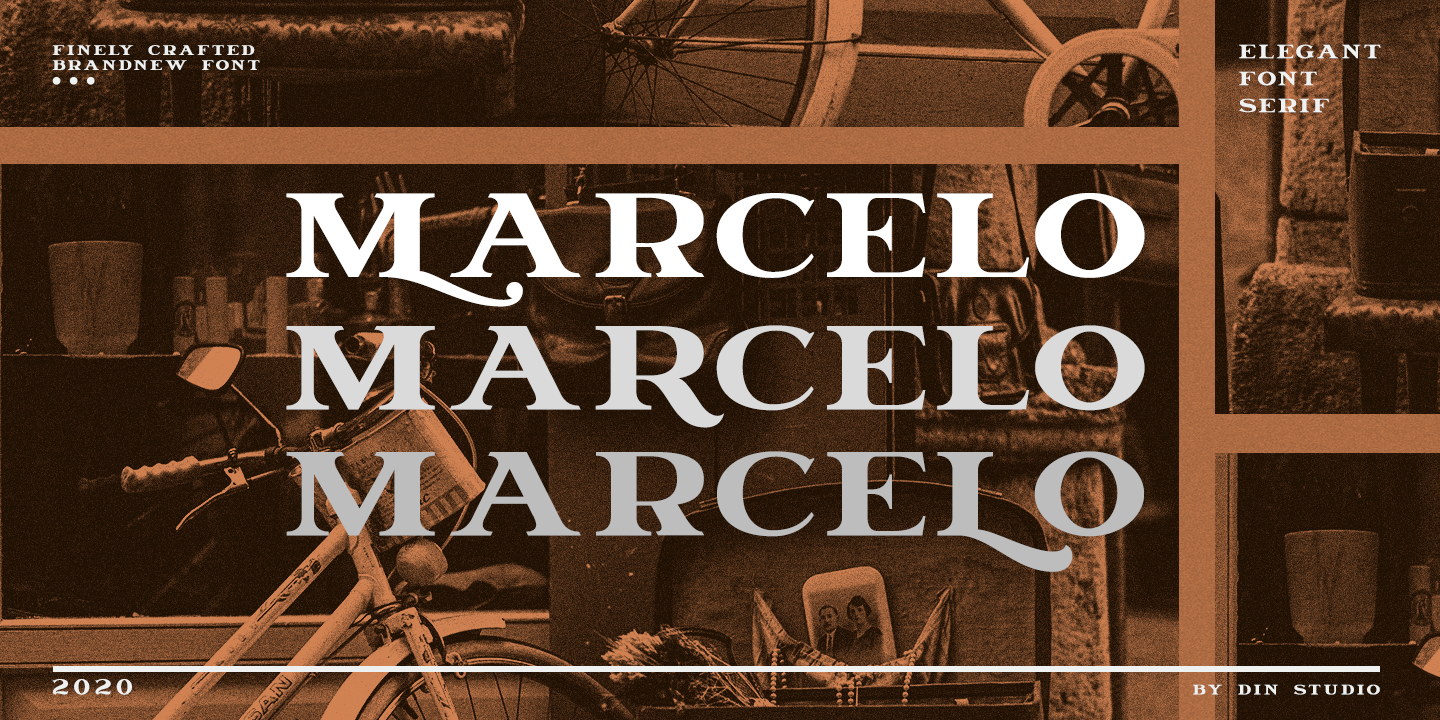
Marcelo Font is an exceptional choice for projects that demand a sense of modern elegance, refined simplicity, and versatile readability. It's perfectly suited for high-end branding, minimalist website designs, professional presentations, stylish editorial layouts, and any application where you need a clean, sophisticated, and highly adaptable typeface. Imagine it gracing a contemporary fashion brand's identity, providing clear and aesthetic navigation on a sleek online portfolio, or adding an air of understated luxury to a product's packaging. Its balanced proportions and crisp lines ensure your message is conveyed with both efficiency and undeniable modern appeal.
What makes Marcelo Font so exciting is its remarkable ability to blend professional neutrality with a subtle, distinctive character. It offers excellent legibility, making it a reliable workhorse for extensive text, while its refined design ensures it never feels generic. This font isn't just about conveying information; it’s about providing a solid, aesthetically pleasing foundation for any design, making content appear organized, trustworthy, and visually appealing. It empowers designers to create visuals that are not only effective but also subtly distinctive, standing out through their sheer quality and versatile application.
The Marcelo Font family typically offers a comprehensive range of weights and styles to provide maximum design flexibility. You can expect to find a broad spectrum from a delicate Thin or Light, through a versatile Regular, to a commanding Bold or Black weight, often accompanied by corresponding italic versions. This extensive range allows for sophisticated typographic hierarchies and ensures that whether you need subtle annotations or prominent headlines, the Marcelo Font Free Download provides the foundational versatility to achieve a cohesive, elegant, and highly professional design across all your platforms.